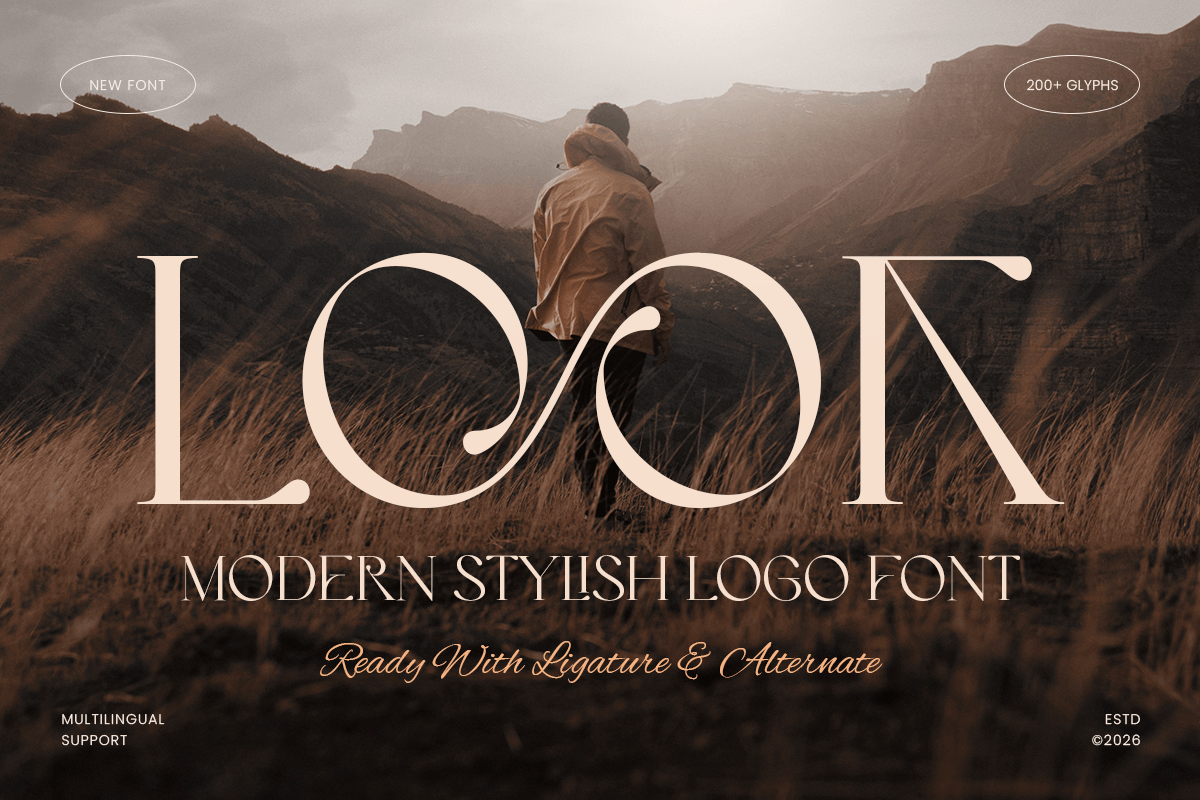
Look
-Modern Stylish Serif FontLook - Modern Stylish Serif Font
LOOK is a modern stylish logo font crafted to bring clarity, elegance, and contemporary character to your branding projects. With clean letterforms, balanced proportions, and a refined visual rhythm, this typeface is perfect for logos, packaging, editorial titles, product labels, and modern identity systems.
Designed for creatives who need typography that feels polished yet distinctive, LOOK blends minimal structure with stylish personality. Its versatile appearance makes it ideal for fashion brands, lifestyle products, beauty packaging, creative studios, boutique identities, and professional digital branding.
Whether used as a logo mark, headline, packaging centerpiece, or social media title, LOOK delivers a sleek and memorable impression across both print and digital applications.
LOOK – Modern Stylish Logo Font Features
Modern stylish letterforms for clean logo design
Perfect for branding, packaging, editorials, and visual identity systems
Refined proportions with elegant contemporary appeal
Ideal for fashion, beauty, lifestyle, boutique, and creative industries
OpenType features for enhanced typographic styling
Create stylish modern branding with LOOK – the perfect logo font for clean identities, elegant packaging, and contemporary design. ✨